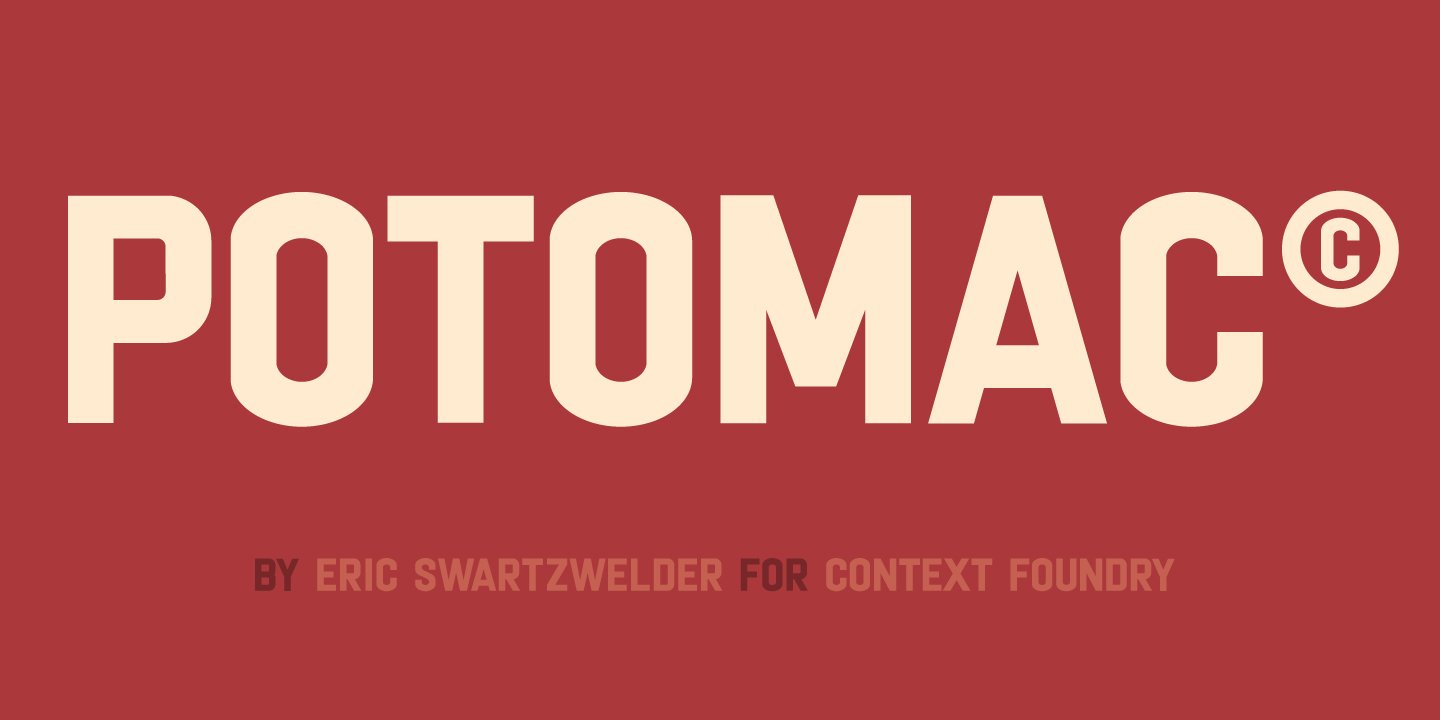
Potomac Font is ideal for government agency branding, political campaign materials, Washington D.C. tourism guides, federal institution signage, diplomatic correspondence, and American civic organization logos.
Potomac Font is exciting because it embodies the dignity and democratic ideals of American governance, offering designers a distinguished typeface that captures the gravitas and institutional authority of the nation's capital.
The Potomac Font family includes governmental variations: Potomac Light, Potomac Regular, Potomac Medium, Potomac Bold, institutional alternates, and decorative elements inspired by classical American architecture and federal typography.
Serve democracy with Potomac Font Free Download, a distinguished typeface that brings governmental authority and civic dignity to your most important institutional design projects. This authoritative font excels in creating trustworthy branding for government agencies, political organizations, civic associations, and public service institutions that uphold democratic values and serve the American people with integrity. The carefully engineered letterforms feature balanced proportions and classical details reminiscent of federal building inscriptions and constitutional documents that communicate stability, transparency, and democratic accountability while ensuring maximum readability across all official applications. Perfect for legislative documents, public policy reports, civic education materials, and patriotic commemorative events that need to convey institutional credibility and public trust, this font connects with citizens who value democratic participation and constitutional principles. Each character stands with democratic resolve, making every official communication feel like a commitment to public service and constitutional governance. Potomac Font transforms government communications into inspiring declarations that strengthen democratic institutions and foster citizen engagement in the ongoing work of building a more perfect union.